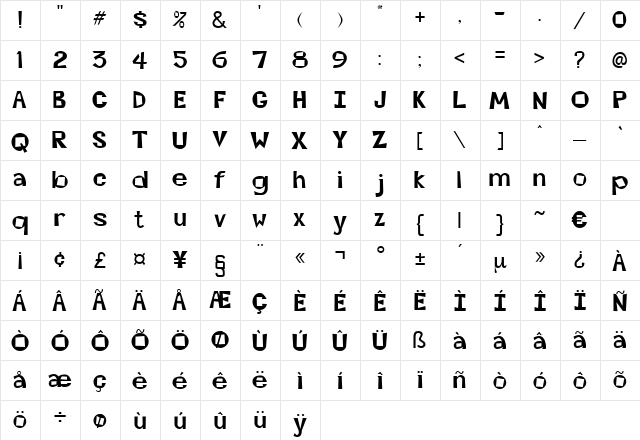
Onedin Regular
Design Context for Onedin Typeface
Onedin offers clean, dependable letterforms without strong stylistic allegiance, making it a practical choice for designers who need flexibility.